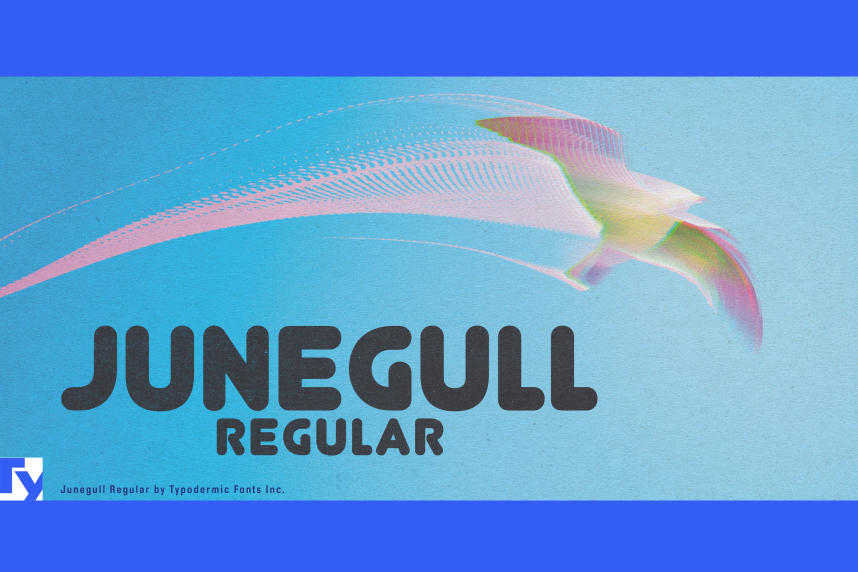
Junegull Font, which was designed by Ray Larabie and published by Typodermic, belongs to the rounded, all-caps display sans serif typeface family.
This font was created to live comfortably in two worlds clean, approachable futurism and warm, sun-baked nostalgia. Its smooth geometry and even stroke weight project confidence without the cold edge of harder-lined tech typefaces, with every curve softened and every letterform made inviting.
Junegull Font
NameJunegull Font
DesignerRay Larabie
TypeRounded Display
Date Released2002